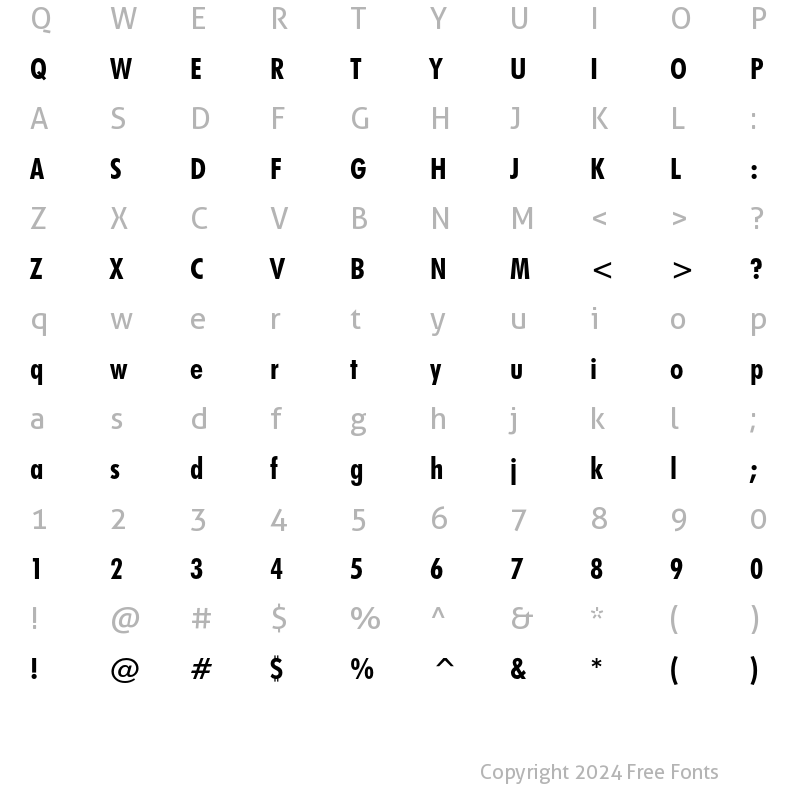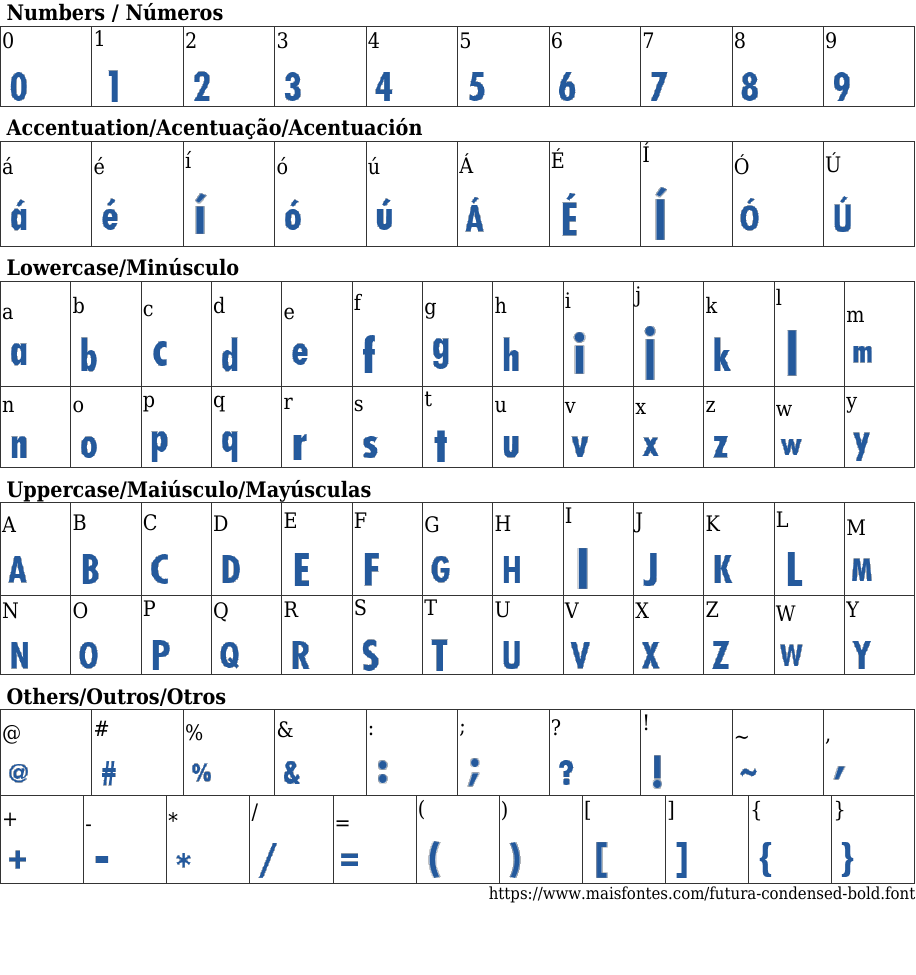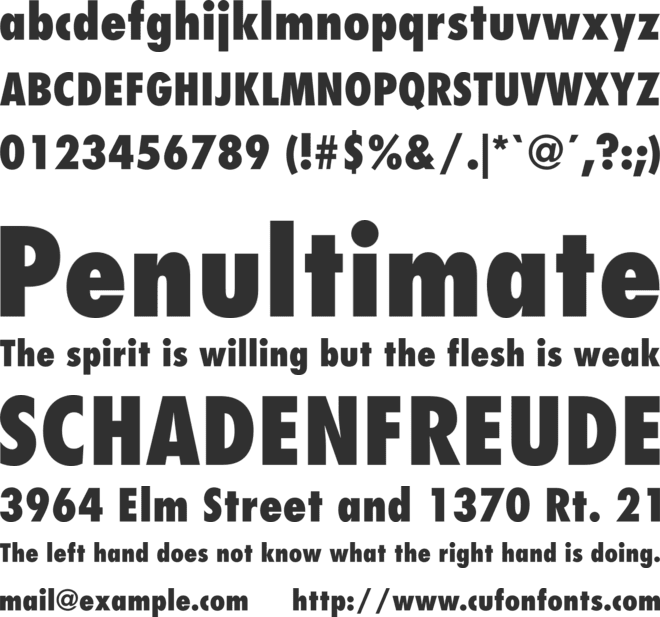
Futura Condensed Bold Font
Futura Condensed Bold Font - The font version is 001.000 and its license is:. The author of the font is unknown. Explore futura pt condensed designed by isabella chaeva, paul renner, vladimir andrich, vladimir yefimov at adobe fonts. The futura std condensed bold font brings firmer and bolder letters and requires caution in the creation of art in order not to lose readability,.